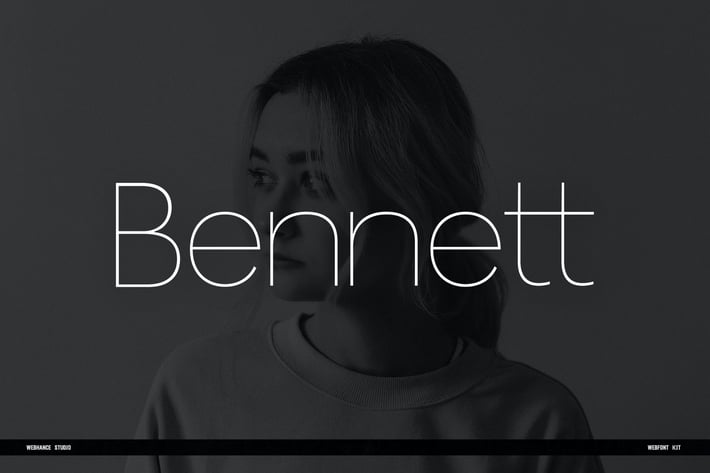
Bennett Display Typefaces + Webfonts
Bennett Font Family
Bennett is a beautiful modern display font family. Bennett carries a powerful, unique, bold, artistic, and social character line with a premium finish, giving a new impression.
Bennett is perfectly crafted for logos, magazines, advertisements, websites, headlines, titles, captions, UIs, games, apps, films, apparel and more.
08 Font Variants
Regular & Italics
Uppercase & lowercase letters
Multi-language support